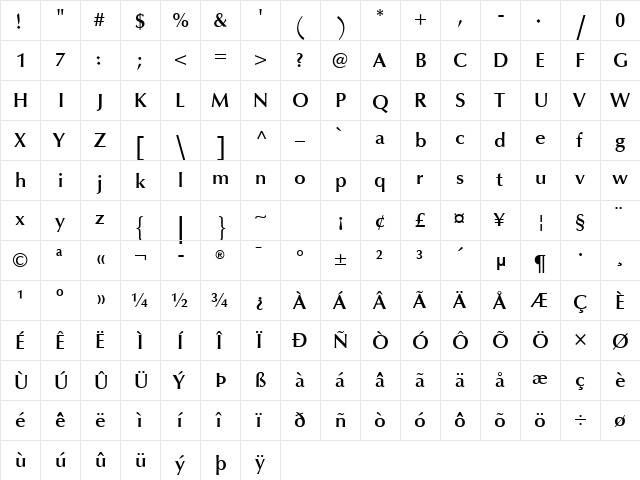
Jalal LT Light
| Foundry | Linotype GmbH |
| Designer | Margaret Tan |
Design Context for Jalal LT Typeface
Jalal LT takes a measured approach to typography — its balanced proportions and neutral character make it a reliable workhorse for both digital and print work. The delicate stroke weight brings airiness and refinement to layouts.
Pro Tip: Use Jalal LT in both headline and body roles to test its range before committing to a single application.